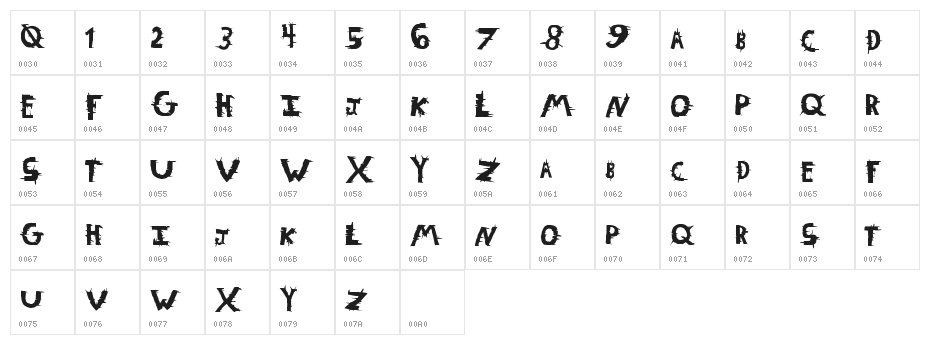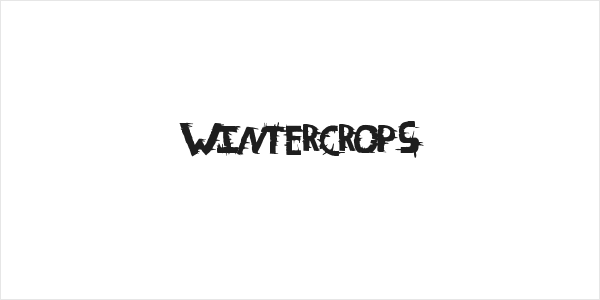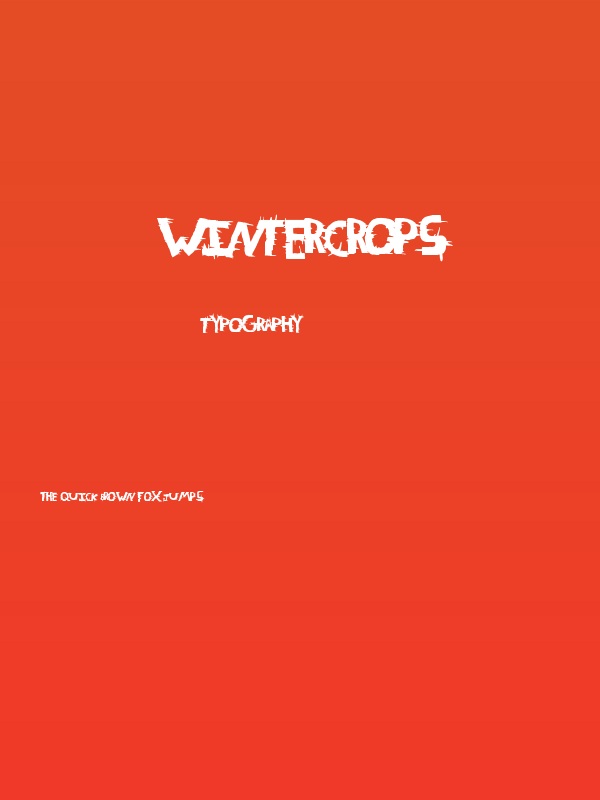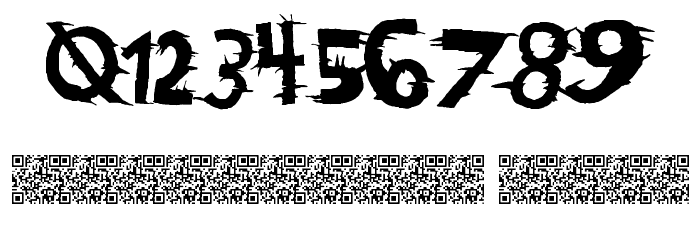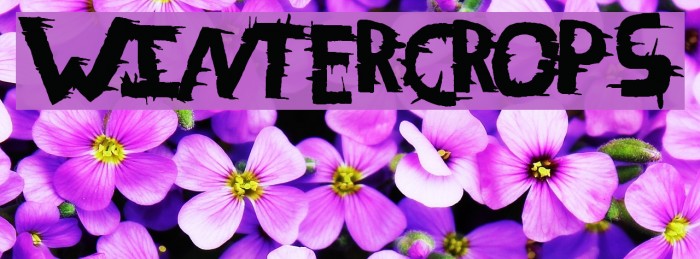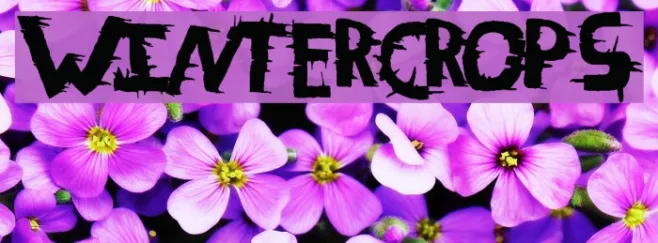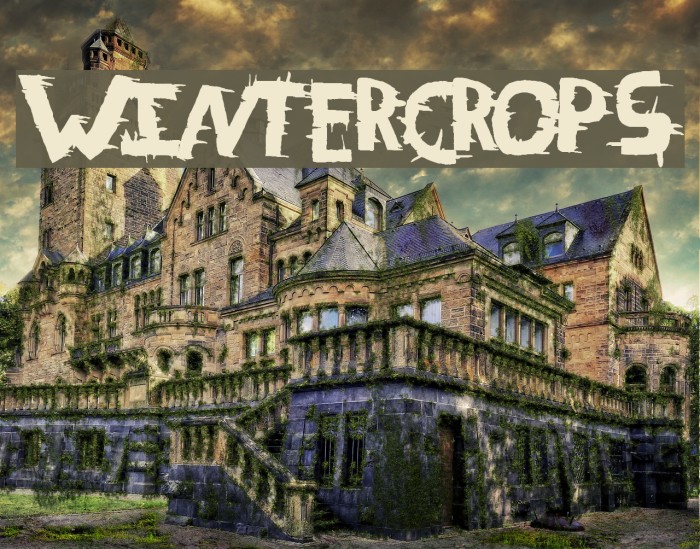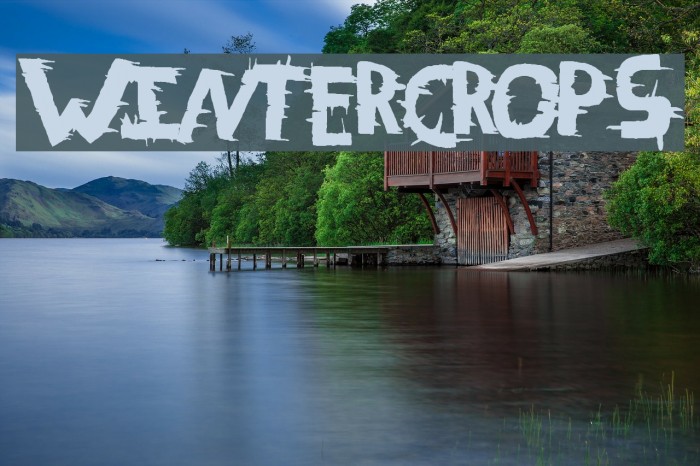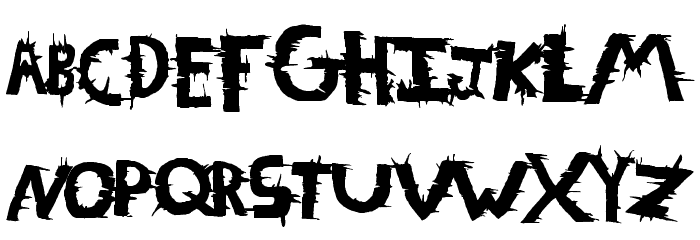
WinterCrops Font
WinterCrops Description
This font features a rugged, edgy design with sharp, thorn-like protrusions extending from each character. The letters are bold and heavily stylized, giving an impression of wild, untamed nature. The jagged edges and irregular shapes create a sense of chaos and intensity, making it ideal for projects that require a dramatic and eye-catching typeface. The uppercase and lowercase letters maintain a consistent style, with numbers and special characters following the same aesthetic. The overall appearance is both aggressive and artistic, perfect for themes related to horror, wilderness, or extreme sports.
WINTERCROPS UPPERCASE
WINTERCROPS LOWERCASE
WINTERCROPS OTHER CHARS
| Proposed Projects | Ideal for horror movie posters, extreme sports branding, Halloween event flyers, and edgy album covers. |